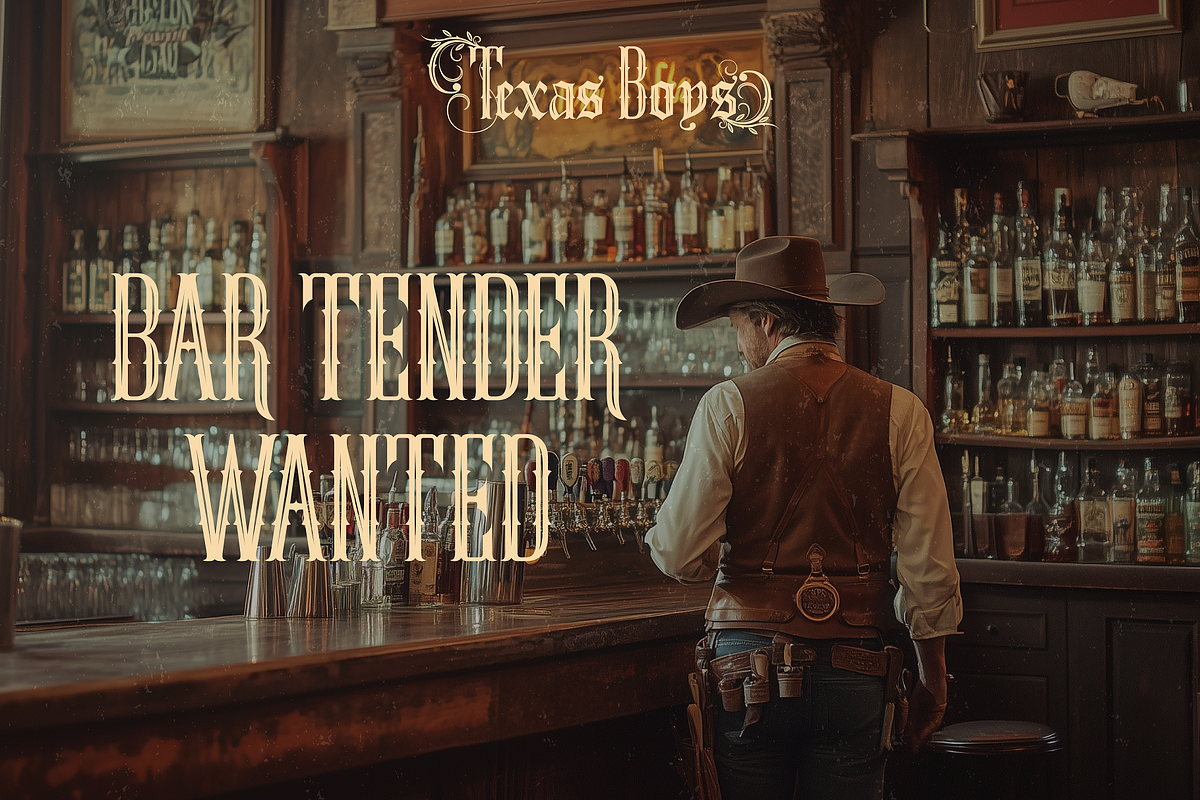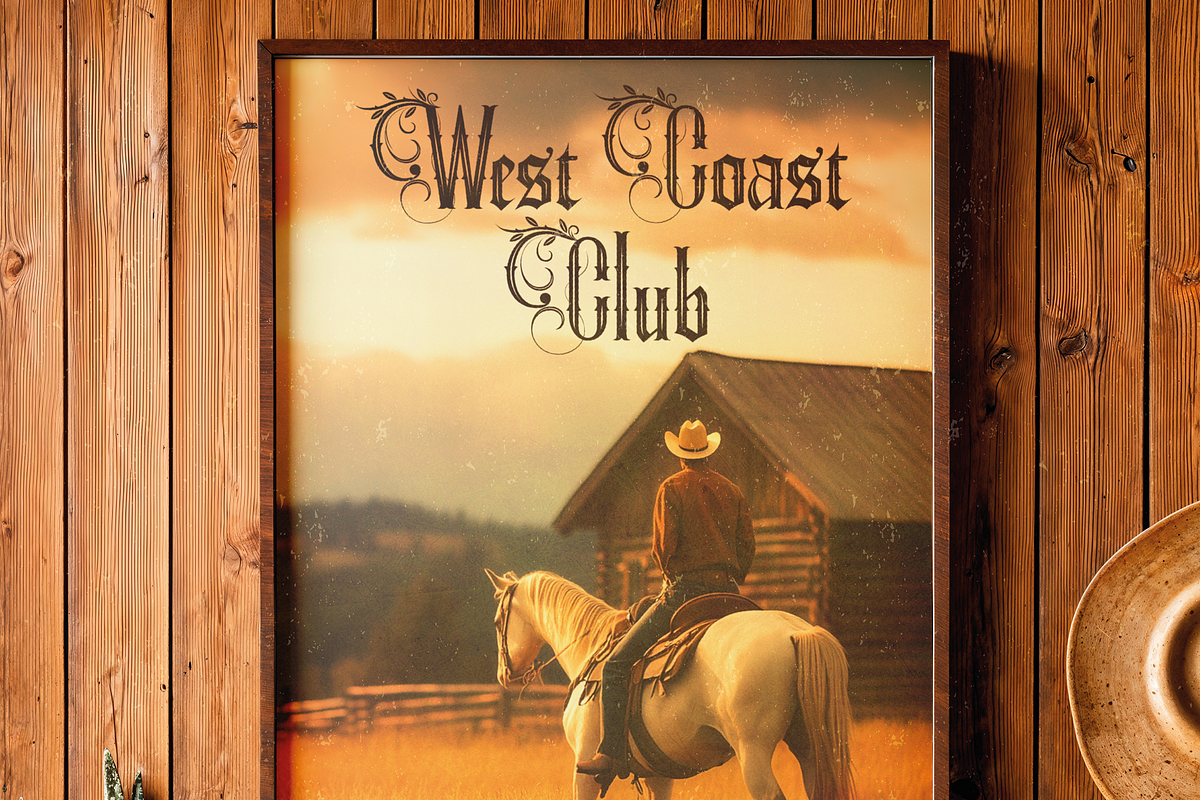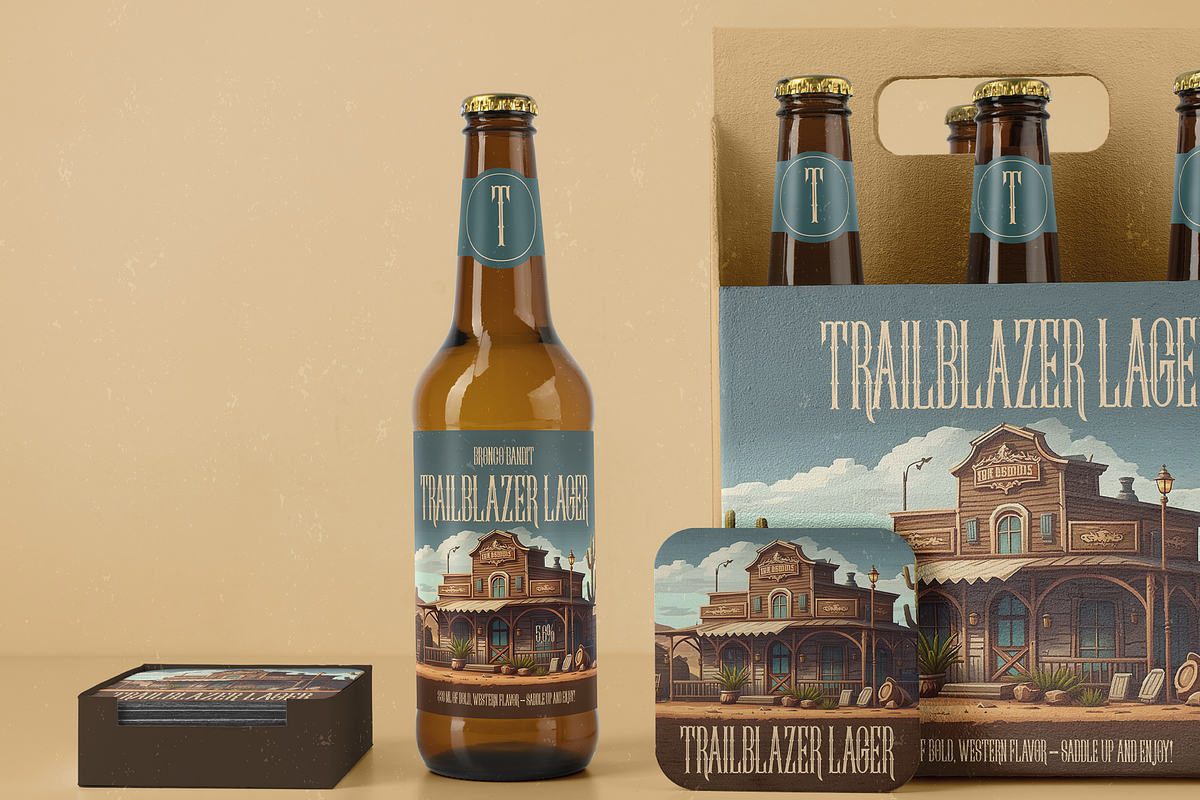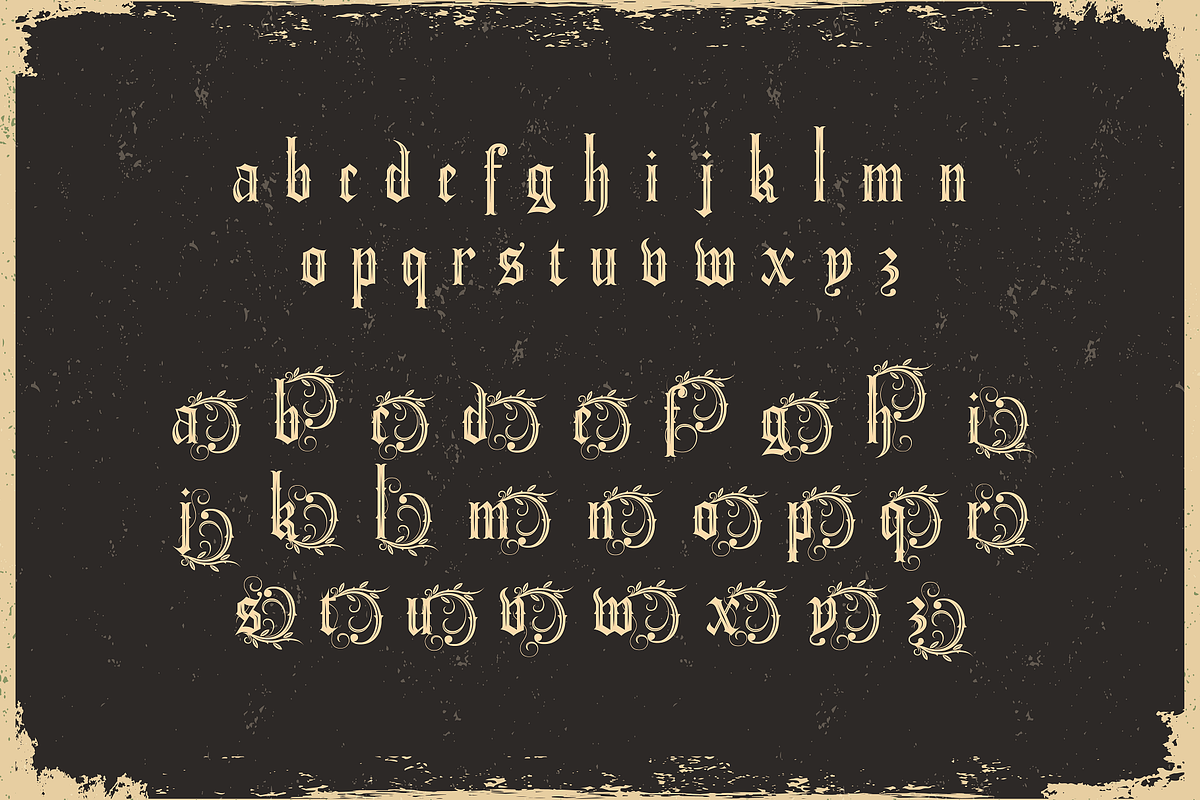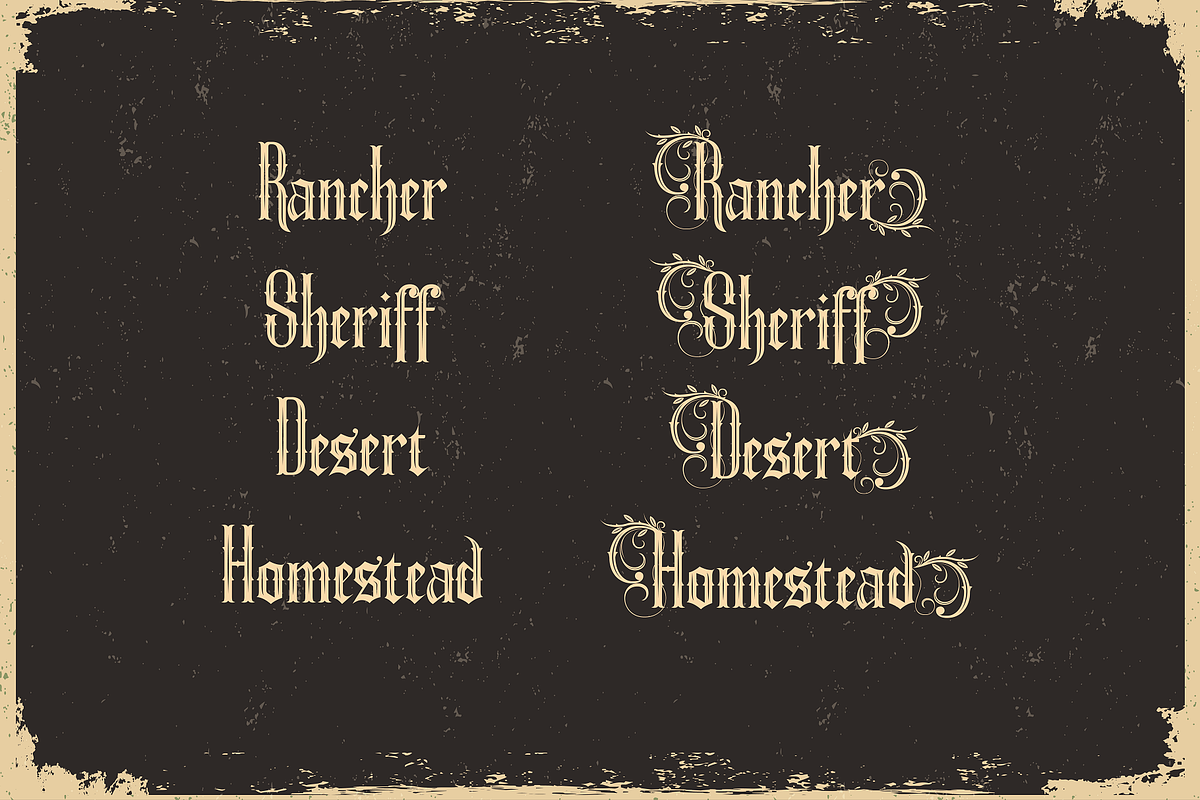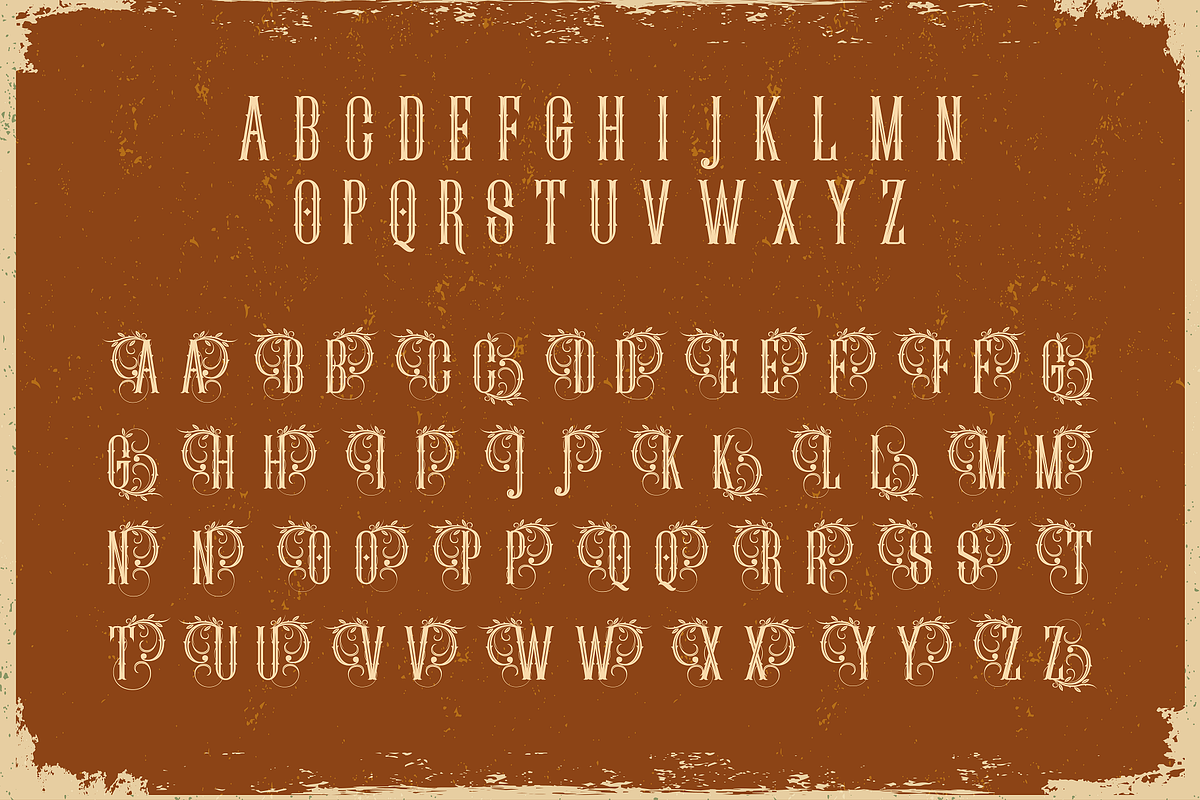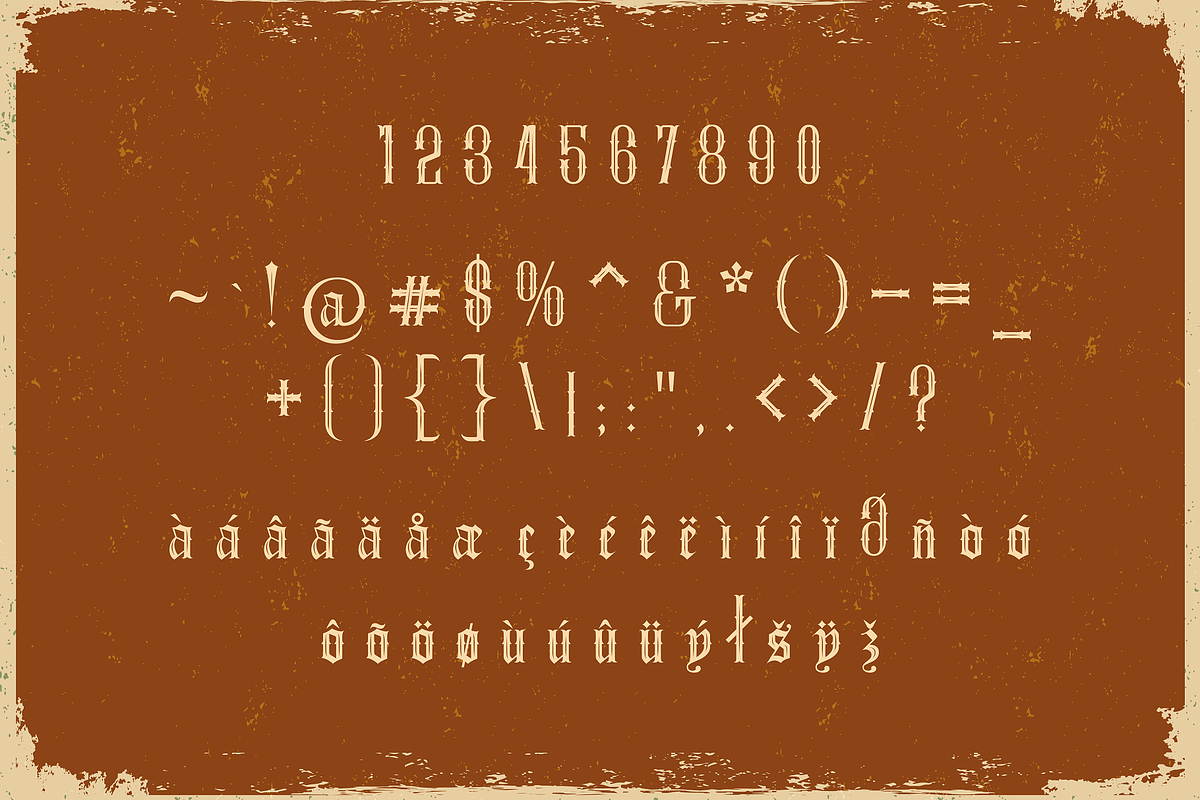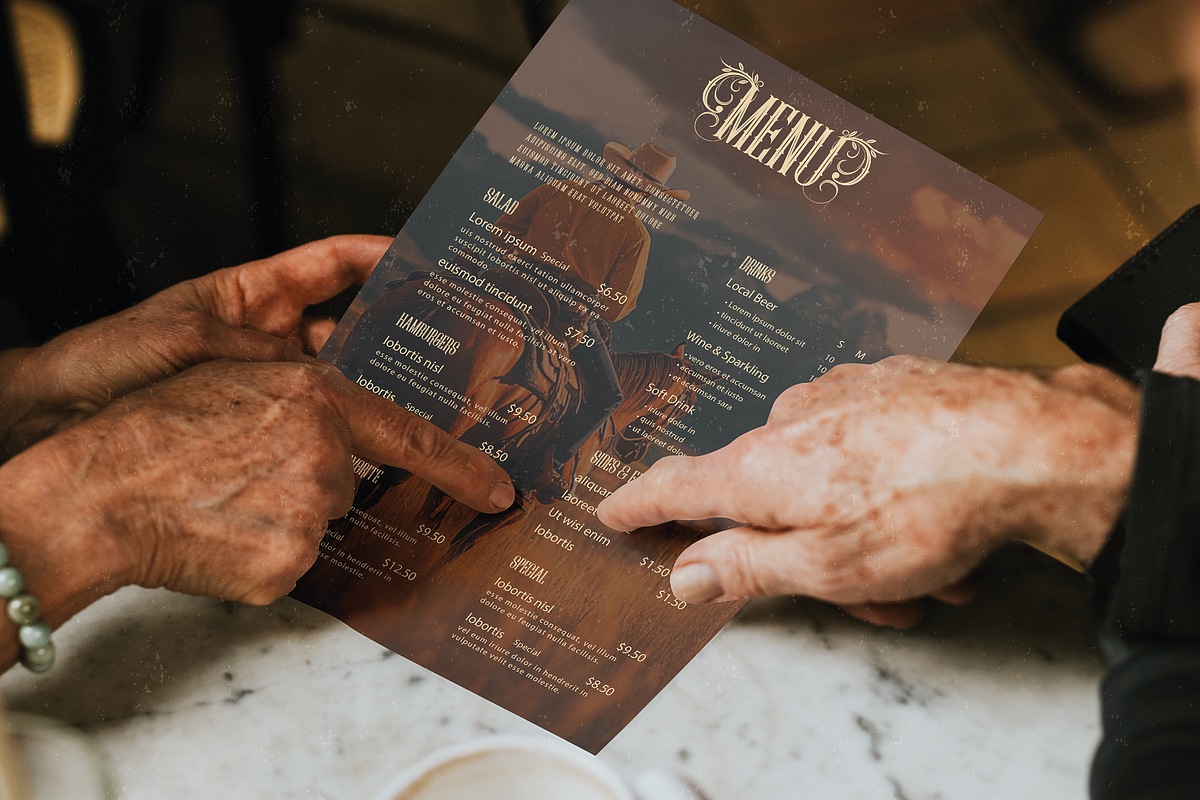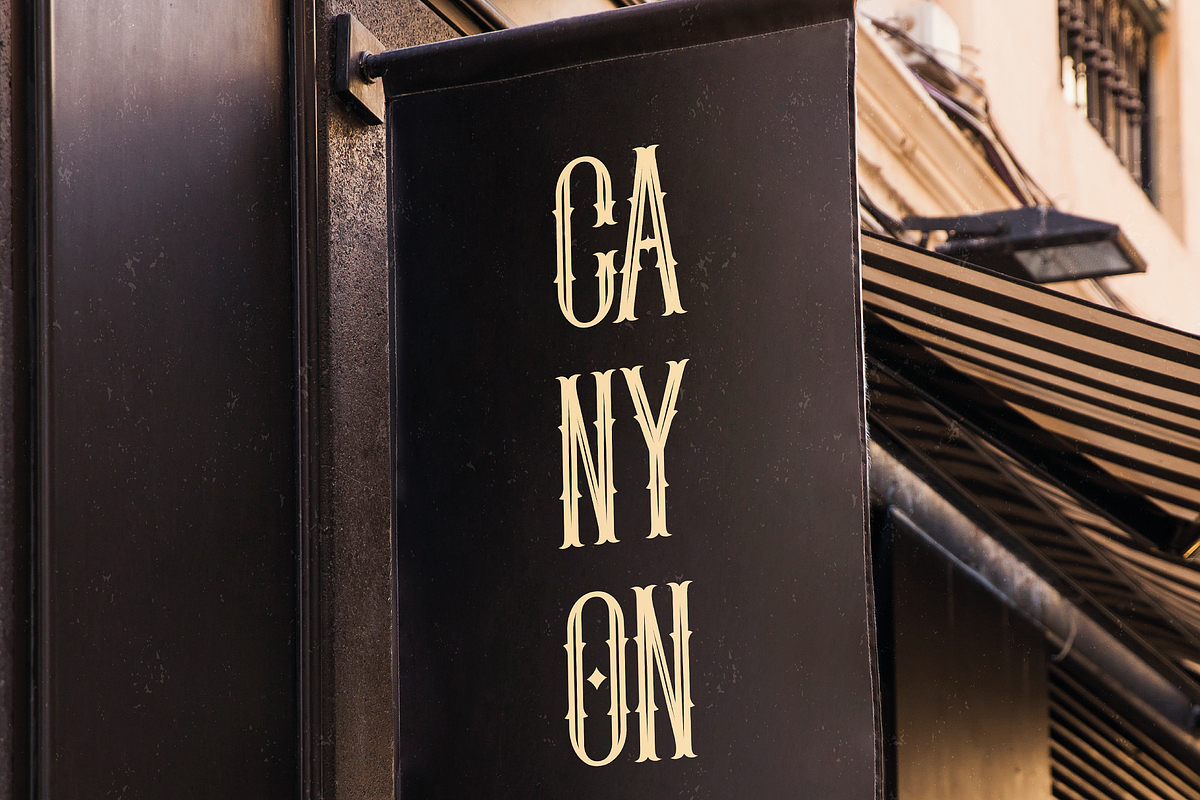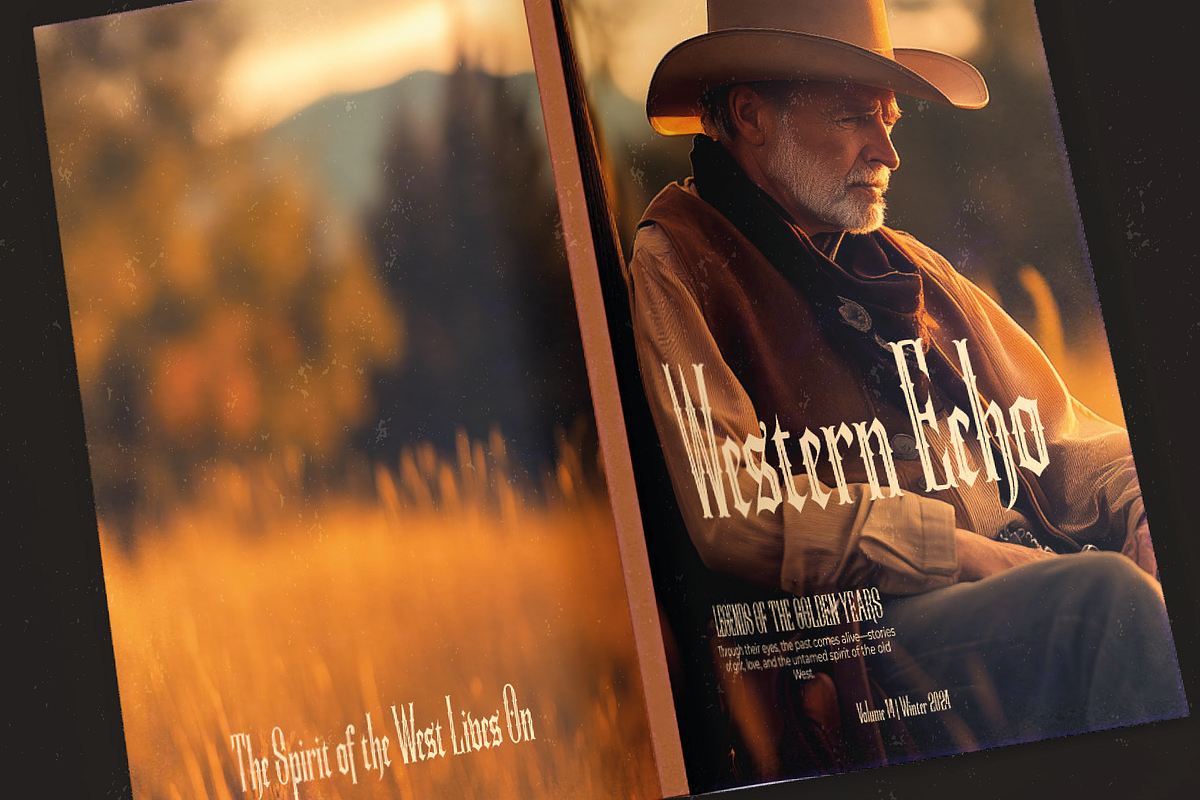
Bronco Bandit - Wild West Typeface
Saddle up and ride into the wild west with Bronco Bandit, a bold and sharp serif typeface inspired by the rugged charm of cowboys, saloons, and the untamed frontier. This typeface captures the spirit of adventure and rebellion with its distinctive sharp edges and timeless design.
Perfect for antique and western-themed projects, Bronco Bandit is ideal for:
- Vintage posters
- Branding for saloons or ranches
- Cowboy-themed events
- Authentic product packaging
- Wild west-inspired merchandise
With its unforgettable style and strong personality, Bronco Bandit is the ultimate choice for adding a touch of western flair to your designs. Whether you're crafting logos, headlines, or promotional materials, this typeface is sure to leave a lasting impression.
Let Bronco Bandit bring your projects to life with the grit and glory of the old west. It’s time to stake your claim!